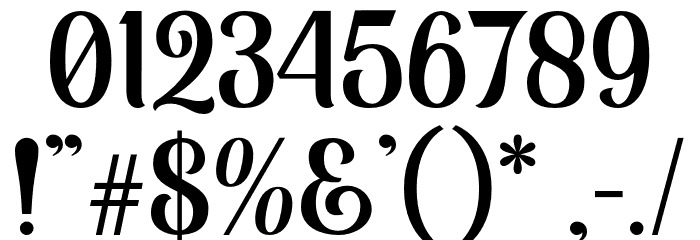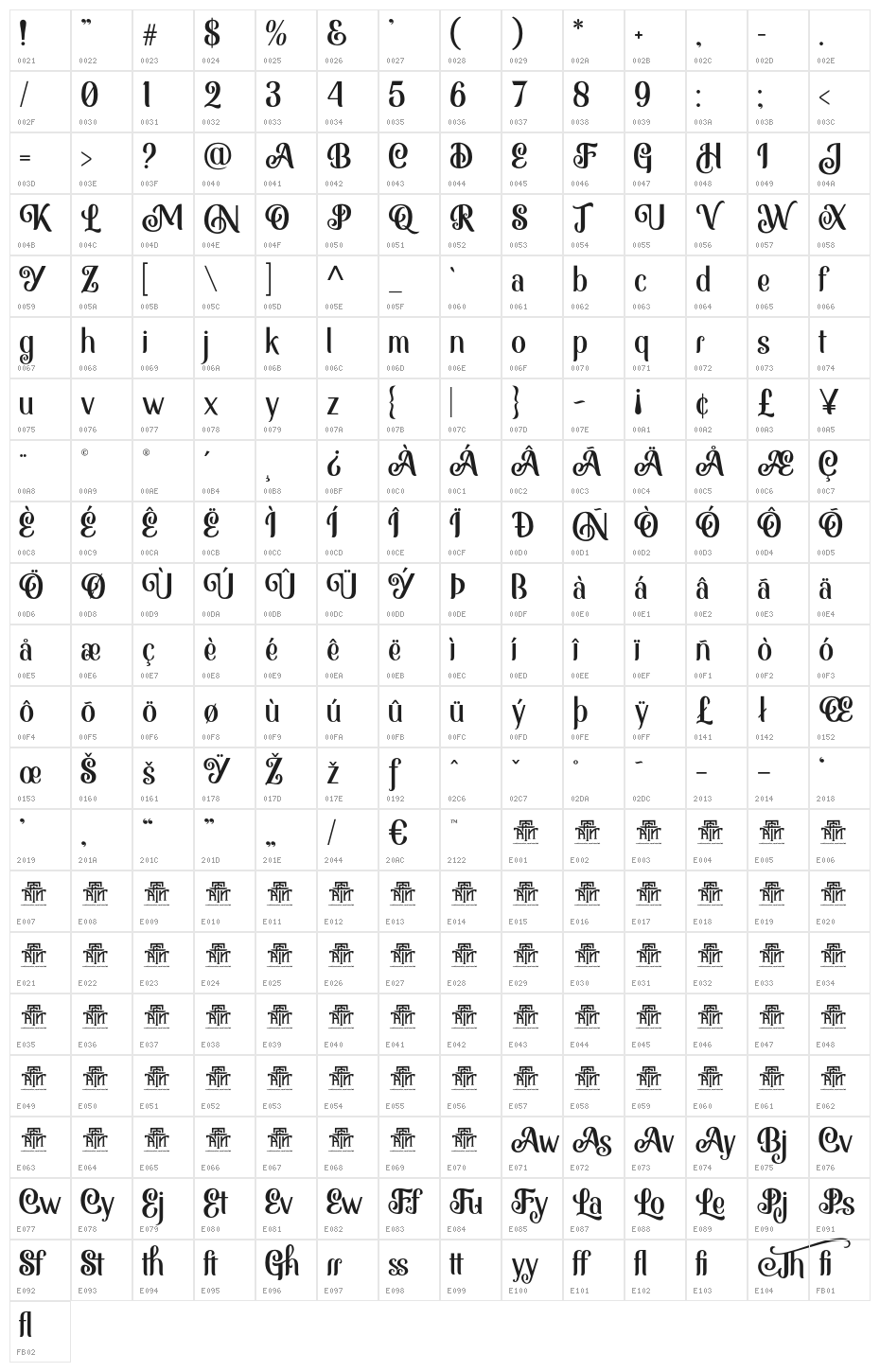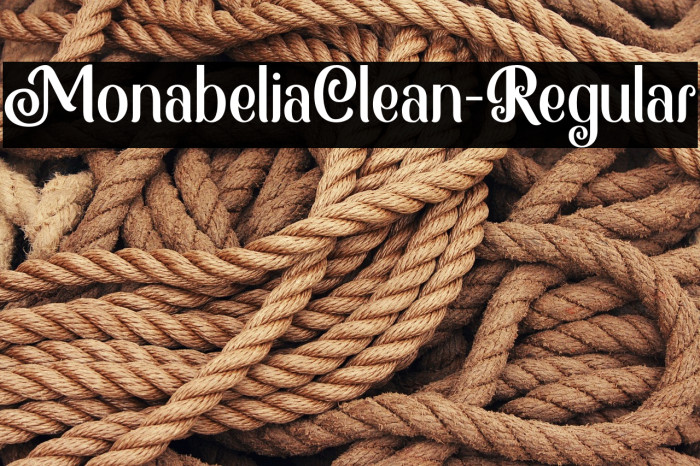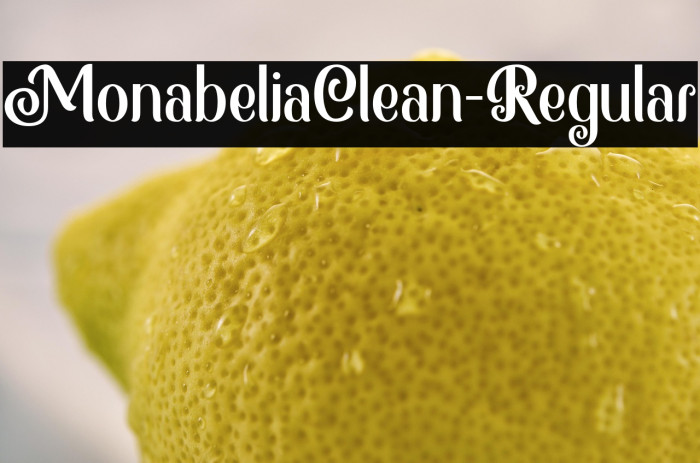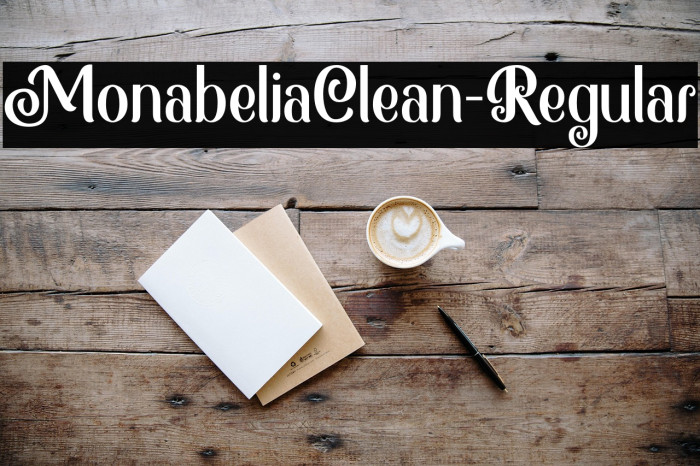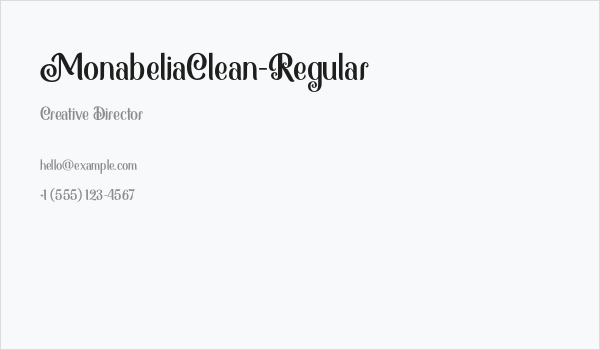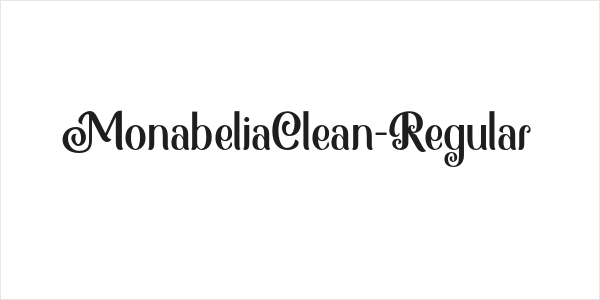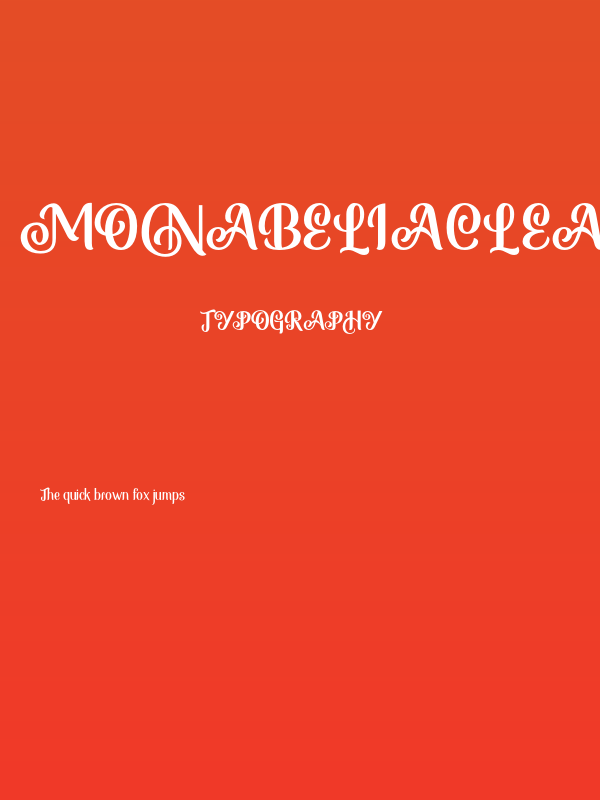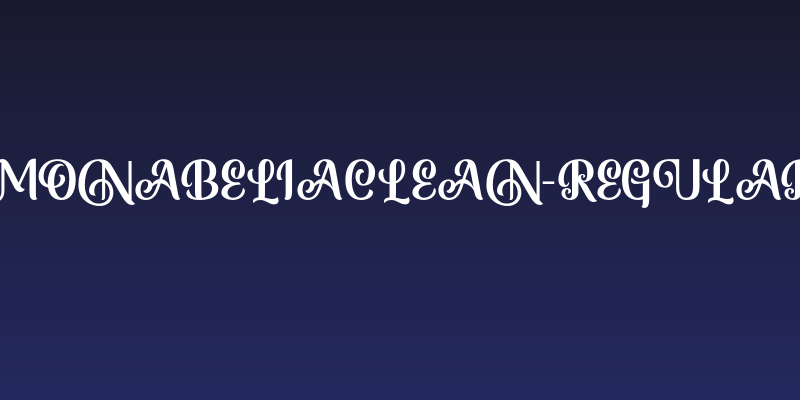
MonabeliaClean-Regular Font
MonabeliaClean-Regular Description
This font features a decorative and elegant style with a unique flair in its letterforms. The uppercase letters are characterized by intricate loops and swirls, giving them a sophisticated and artistic appearance. The lowercase letters maintain a more straightforward yet stylish design, complementing the uppercase with subtle curves. The numerals are bold and clear, ensuring readability while maintaining the font's overall decorative theme. Special characters are designed with the same attention to detail, making them stand out. The font's overall aesthetic is both classic and modern, making it versatile for various design projects.
Use CaseHeadlines, Logos, Invitations
Proposed ProjectsIdeal for wedding invitations, luxury branding, artistic posters, and decorative headlines.